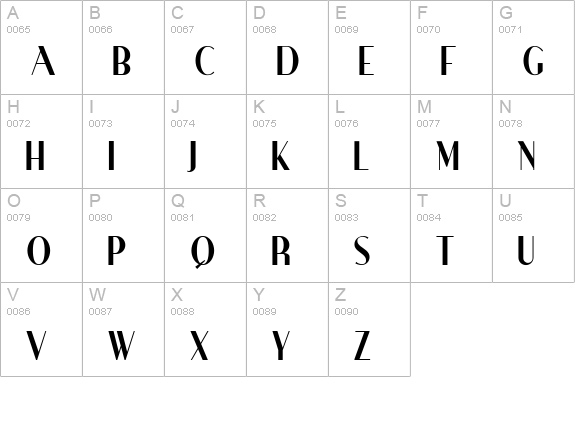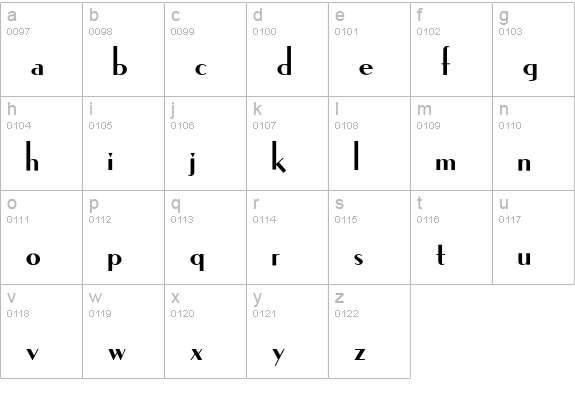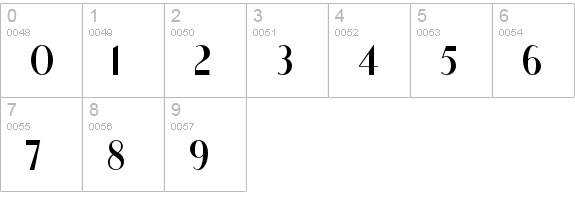
Ironick NF Font Details
Ironick NF is a unique and stylish font that combines modern elements with a hint of nostalgia. Its clean lines and sleek curves make it perfect for a wide range of design projects, from branding to editorial layouts. The font exudes a sense of sophistication and creativity, making it a versatile choice for both digital and print designs. What sets Ironick NF apart is its free-spirited nature, allowing you to experiment with different styles and layouts without any limitations. Whether you're looking to create bold headlines or elegant body text, this font has you covered. With its wide range of weights and styles, Ironick NF offers endless possibilities for your creative projects. Best of all, Ironick NF is freely available to download at FontsMarket.com, making it easily accessible to designers and creatives of all levels. Don't miss out on this opportunity to add a touch of elegance and flair to your next project with Ironick NF font.